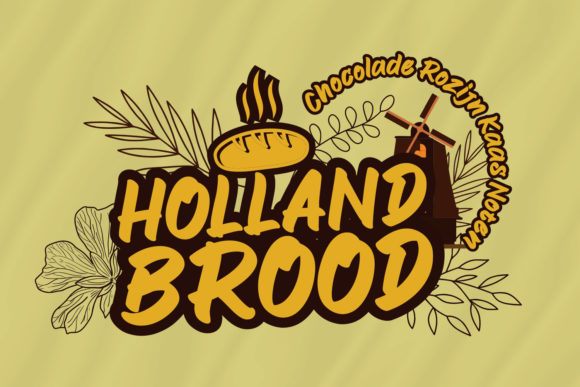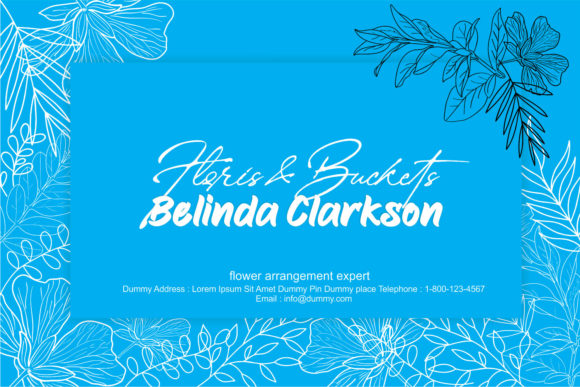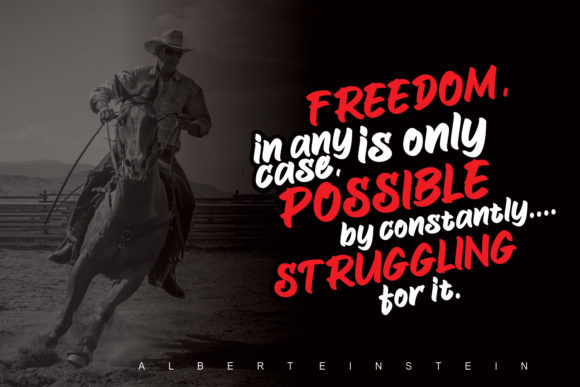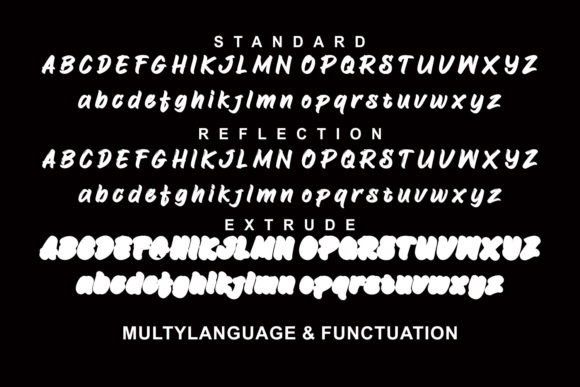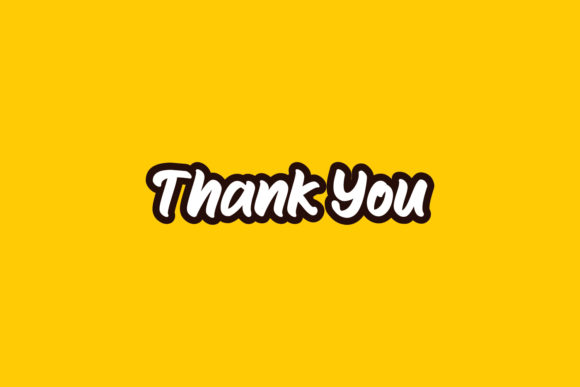
Introducing Crunchy Croissant Font: The Bold Handwritten Style for Stunning Designs
Are you on the hunt for a font that can elevate your designs to the next level? Look no further than Crunchy Croissant, a bold handwritten font that’s incredibly versatile and stylish. With its unique charm and character, this font is sure to capture the hearts of designers and crafters alike. In this article, we’ll dive into the world of Crunchy Croissant font, exploring its features, benefits, and uses, as well as provide tips on how to make the most of this amazing font.
What is Crunchy Croissant Font?
Crunchy Croissant is a font with a bold handwritten style that’s perfect for creating stunning designs. Its unique blend of elegance and playfulness makes it an excellent choice for a wide range of projects, from branding and advertising to packaging and digital media. Whether you’re a professional designer or a crafty DIY enthusiast, Crunchy Croissant font is sure to inspire your creativity and help you create spectacular designs.
Features of Crunchy Croissant Font
So, what makes Crunchy Croissant font so special? Here are just a few of its key features:
- Bold Handwritten Style: Crunchy Croissant font boasts a bold, handwritten style that’s both elegant and playful.
- Incredibly Versatile: This font is suitable for a wide range of designs, from modern and minimalist to vintage and ornate.
- Stylish Look: With its unique character and charm, Crunchy Croissant font is sure to add a touch of style and sophistication to any design.
- Easy to Read: Despite its bold style, Crunchy Croissant font is incredibly easy to read, making it perfect for body text and headlines.
Benefits of Using Crunchy Croissant Font
So, why should you choose Crunchy Croissant font for your next design project? Here are just a few benefits of using this amazing font:
- Adds Personality to Your Designs: With its unique character and charm, Crunchy Croissant font can help add personality and flair to your designs.
- Perfect for Branding and Advertising: This font is ideal for creating eye-catching logos, ads, and marketing materials that will grab attention and leave a lasting impression.
- Suitable for Digital Media: Crunchy Croissant font is optimized for digital use, making it perfect for social media graphics, website headers, and more.
- Easy to Pair with Other Fonts: This font pairs well with a wide range of other fonts, making it easy to create stunning font combinations.
Tips for Using Crunchy Croissant Font
To get the most out of Crunchy Croissant font, here are a few tips to keep in mind:
- Use it as a Headline Font: Crunchy Croissant font is perfect for headlines and titles, where its bold style can really make an impact.
- Pair it with a Sans-Serif Font: For body text, try pairing Crunchy Croissant font with a clean sans-serif font, such as Arial or Helvetica.
- Experiment with Colors and Textures: Don’t be afraid to get creative with colors and textures when using Crunchy Croissant font. Try adding a pop of color or a textured background to really make your design stand out.
In conclusion, Crunchy Croissant font is an amazing bold handwritten font that’s perfect for designers and crafters looking to add a touch of style and sophistication to their designs. With its unique character, versatility, and ease of use, this font is sure to become a favorite in your design toolkit. So why wait? Download Crunchy Croissant font today and start creating stunning designs that will leave a lasting impression!